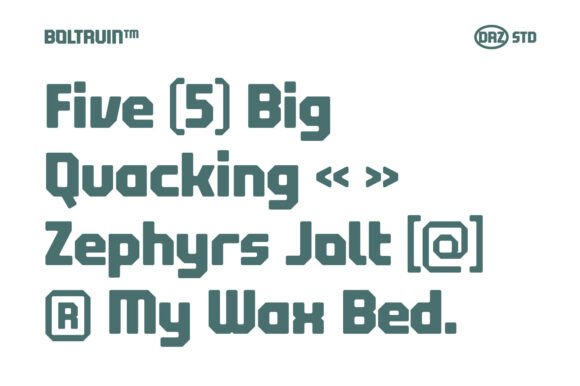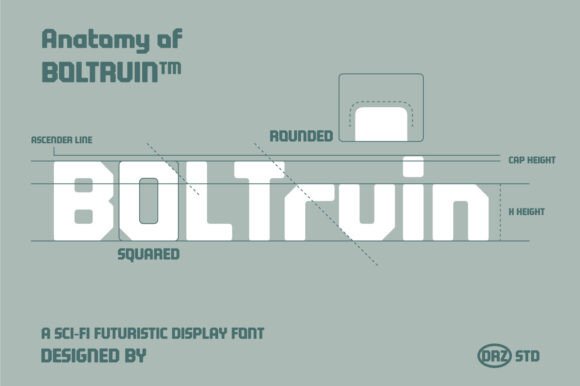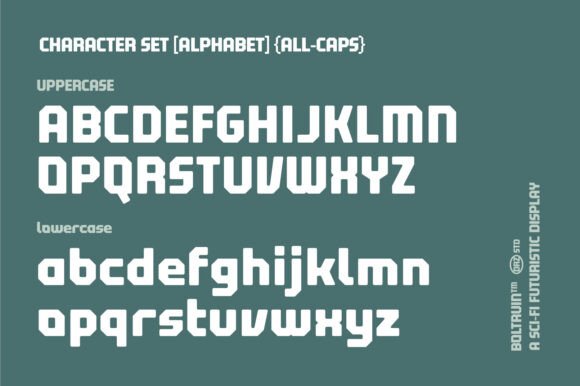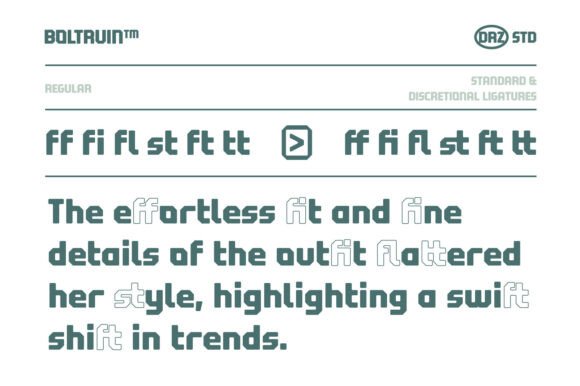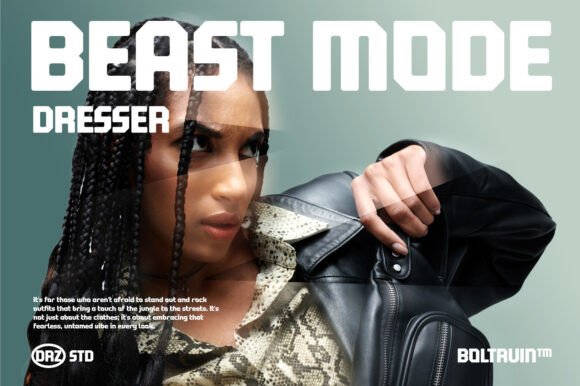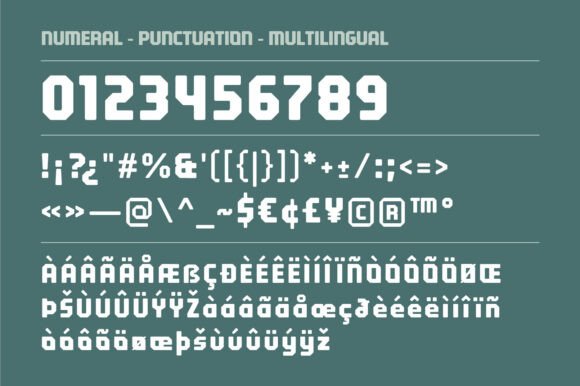
Unlocking the Power of Futuristic Design: Boltruin Font
Have you ever stared at a blank design canvas, feeling the weight of creativity on your shoulders? That’s when the magic happens – when a spark of inspiration strikes and you know exactly what you need to bring your vision to life. For many designers, that spark comes in the form of a bold, eye-catching font that sets the tone for their entire project. Introducing Boltruin, a cutting-edge font that’s about to revolutionize the way you approach futuristic design.
Boltruin is more than just a font – it’s a statement piece that embodies the essence of innovation and style. Designed for those who dare to push creative boundaries, this font is perfect for streetwear fashion, tech-focused branding, or any project that needs to feel bold, edgy, and unmistakably modern. With its sharp angles and unique lines, Boltruin Font is the perfect tool for designers who want to add an electric energy to their designs.
Boltruin Font Key Features
- Font Family: Boltruin, a modern sans-serif font
- Unique Characteristics: Boltruin features a clean, minimalist design with subtle rounded corners and a high x-height, making it suitable for body text and headlines
Boltruin Font Review
Overall, I’d say the Boltruin font is a decent addition to any designer’s toolkit. It’s got a unique aesthetic that’s sure to grab attention, but let’s dive deeper to see what makes it tick.
- Its bold, modern design makes it perfect for headlines and titles.
- The font’s geometric shapes give it a clean, futuristic feel that’s hard to resist.
- The weight and contrast options provide a good range of flexibility for designers to work with.
- The font can feel a bit overwhelming when used in large blocks of text, so use it sparingly.
- It’s not ideal for body text, as the letters can start to blend together and lose their impact.
- The font family is relatively small, so if you need a lot of variations, you might be out of luck.
Overall, I think the Boltruin font is a great choice for designers who want to add some visual punch to their projects. Just be mindful of its limitations and use it in moderation.
For optimal results, use the Boltruin font for headings, titles, and other display text elements.
Avoid using the Boltruin font for body text, as it may be difficult to read in smaller sizes.
Common use cases for the Boltruin font include:
- Logo design and branding
- Infographics and data visualization
- Print materials and brochures
- Online marketing and advertising
Alternatives to Boltruin Font
Merriweather is a classic serif font designed for body text. It is suitable for formal documents, books, and websites where readability is crucial. Merriweather is a good alternative to Boltruin Font as it provides a similar classic look but with a more elegant feel.
2. Playfair Display Font
Playfair Display is an elegant serif font ideal for headlines and titles. It is perfect for luxury brands, high-end fashion, and formal events. Compared to Boltruin Font, Playfair Display has a more refined and sophisticated look, making it suitable for premium designs.
Lato is a modern sans-serif font designed for digital use. It is suitable for websites, apps, and digital products where a clean and minimalist look is required. Lato is a good alternative to Boltruin Font as it provides a similar clean look but with a more modern and versatile feel.
Open Sans is a popular sans-serif font designed for digital use. It is suitable for websites, apps, and digital products where a clean and readable look is required. Open Sans is a good alternative to Boltruin Font as it provides a similar clean look but with a more approachable and friendly feel.
Unlocking Creativity with Boltruin Font